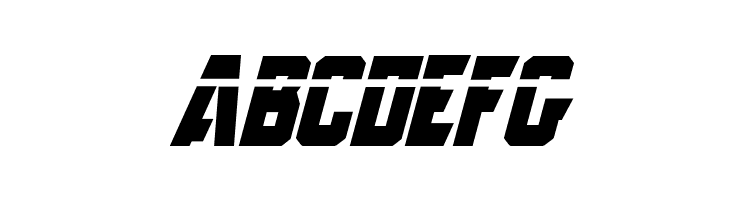
Howlin' Mad Expanded Italic Font
- Font: Howlin' Mad Expanded Italic
- Weight: Expanded Italic
- Version: Version 1.0; 2016
A bold, angular, and italicized font with a futuristic and dynamic style.